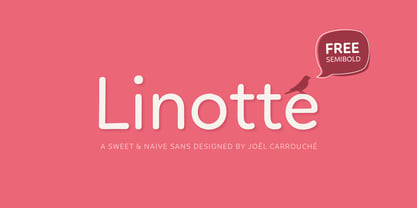
Linotte
Linotte is a rounded sans in 7 styles designed by Joël Carrouché. Small irregularities give the typeface a warm and naive look, while the simple geometric construction provides good legibility in long texts and small sizes. Linotte is an ideal choice for food or kids related products, or anything that needs to convey a human and friendly feeling.
Originally released in 2014, Linotte was updated in 2021 with Greek and Cyrillic support, two new styles, and other small additions. Linotte Semibold is 100% free for personal and commercial use.
The fonts, provided in OpenType format, include diacritics for most European languages, a set of arrows & icons, and a variety of advanced features like stylistic alternates, case-sensitive forms, sub and superscript, automatic fractions, etc.